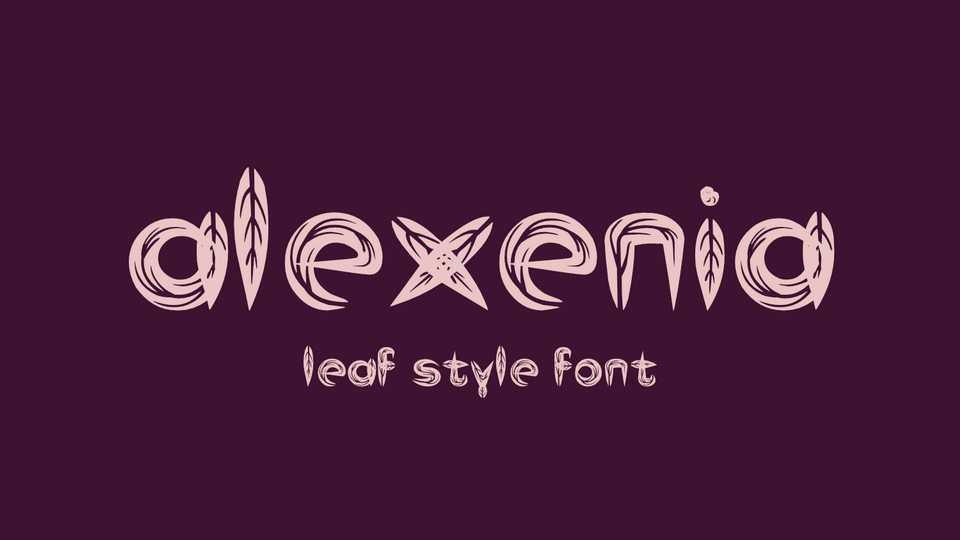
Download Alexenia ifont, a splendid decorative font inspired by fallen leaves scattered about. Alexenia is a natural font, with distinctive shapes and cavities that make it seem so exotic, stunning.